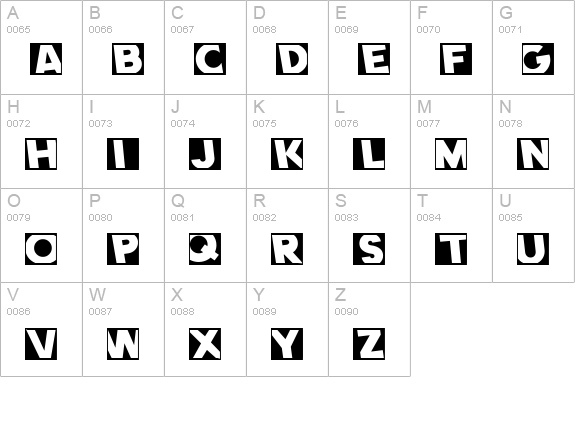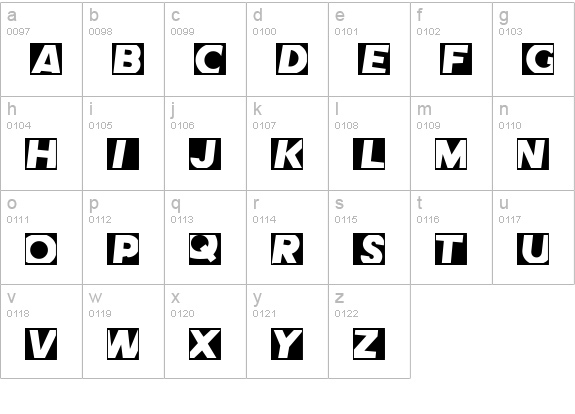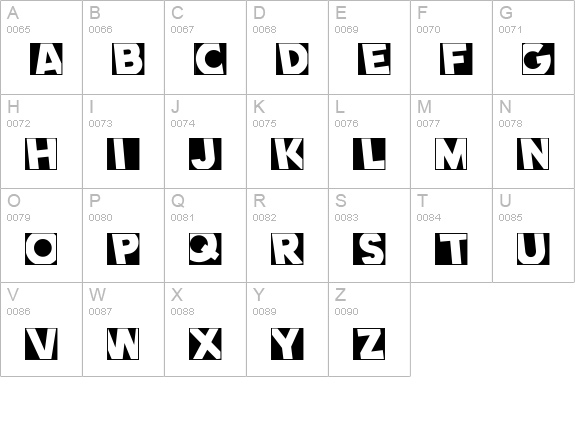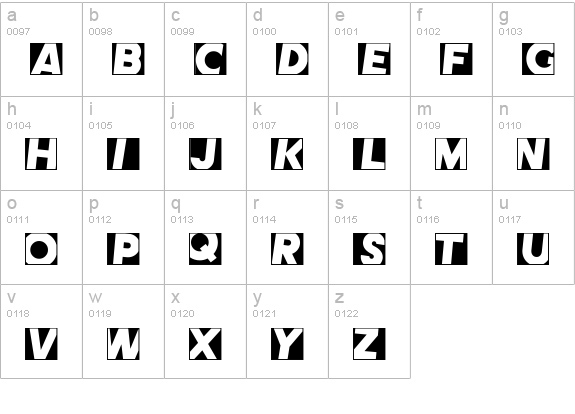
Comet Negative Font Details
Comet Negative font is a bold and modern typeface that exudes a sense of strength and sophistication. With its sleek lines and contemporary design, this font is perfect for adding a touch of elegance to any project. The unique negative space within each character adds a dynamic element to the overall look, making it stand out from the crowd. What's even better is that Comet Negative font is available for free download at FontsMarket.com. This means you can easily access this versatile typeface and use it in your designs without any cost. Whether you're working on branding materials, posters, or digital projects, Comet Negative font is sure to make a lasting impression. Elevate your design game with this stunning font today!